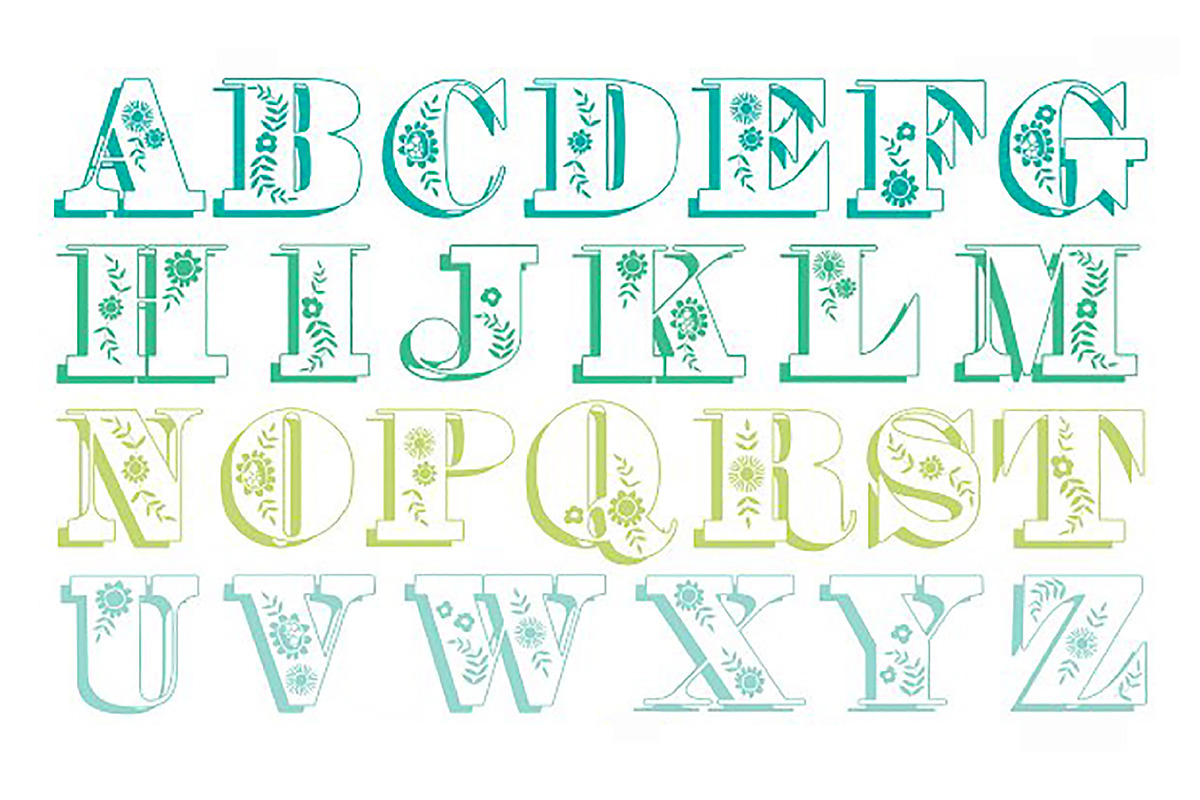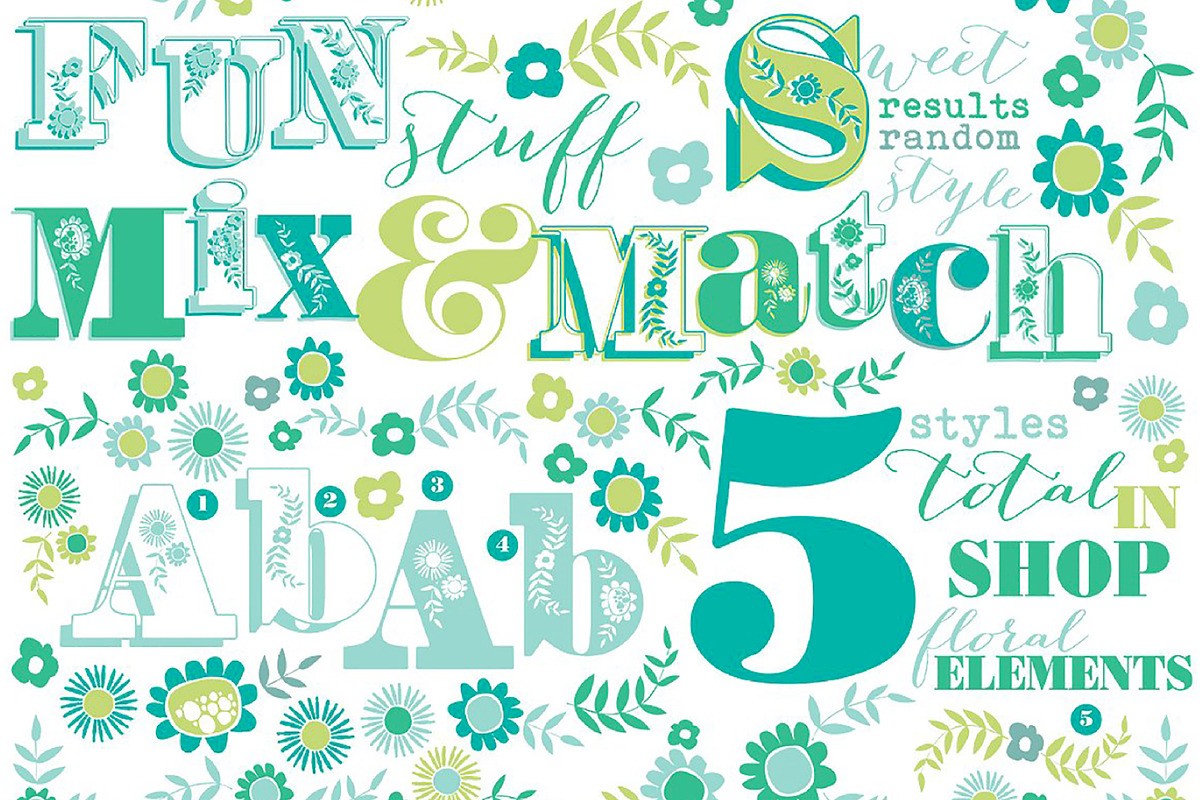
Anna Mae Shadowed Uppercase Font
Anna Mae Shadowed Uppercase Font by shawnanonna is a font selected for branding, posters, packaging, typography.
Why Anna Mae Shadowed Uppercase Font is worth a look
Anna Mae Shadowed Uppercase Font by shawnanonna fits naturally into Branding, posters, packaging, typography.